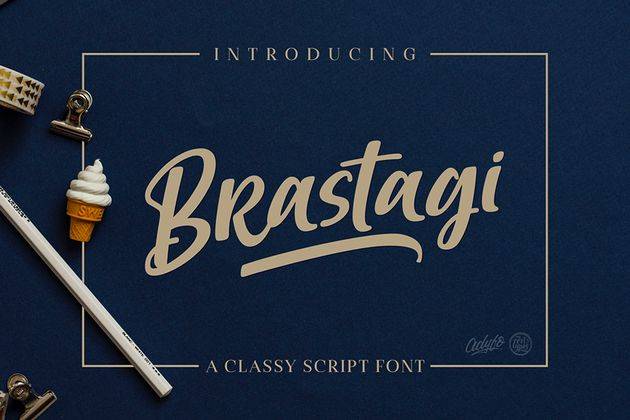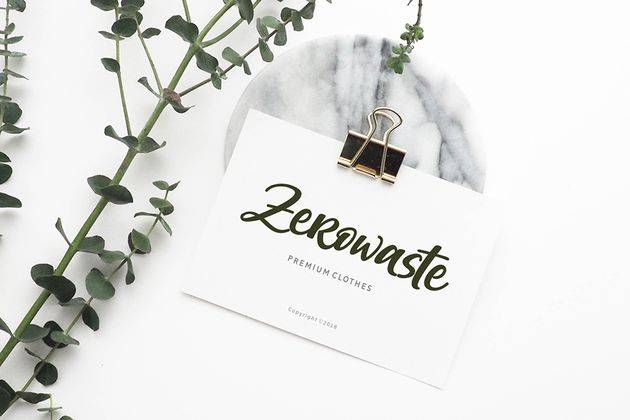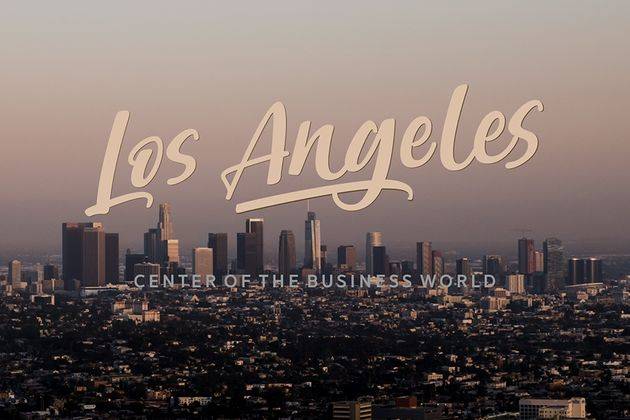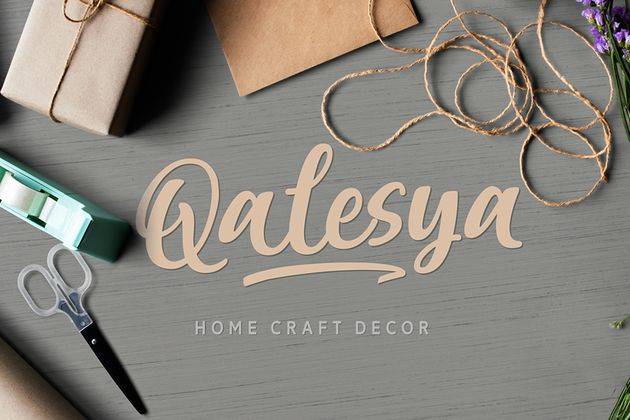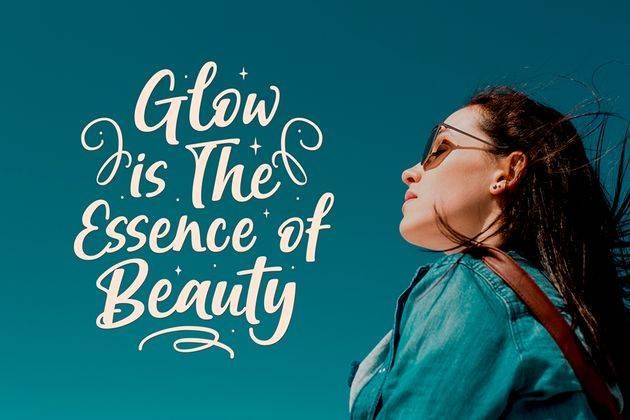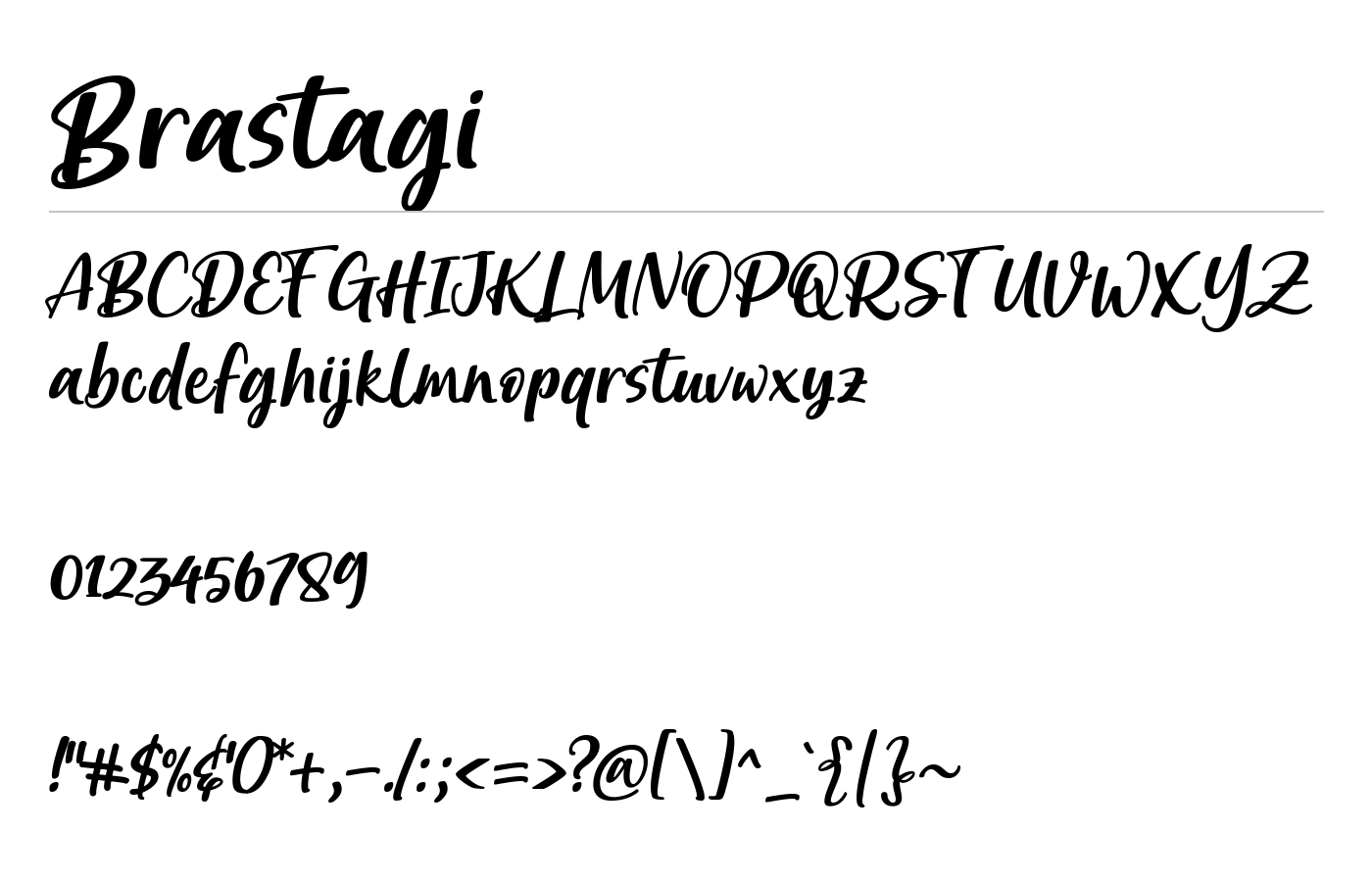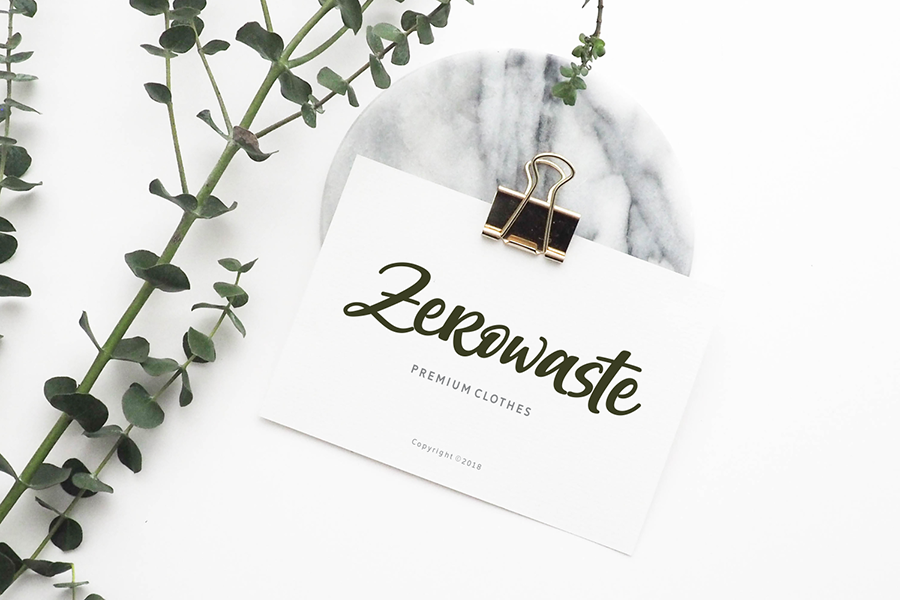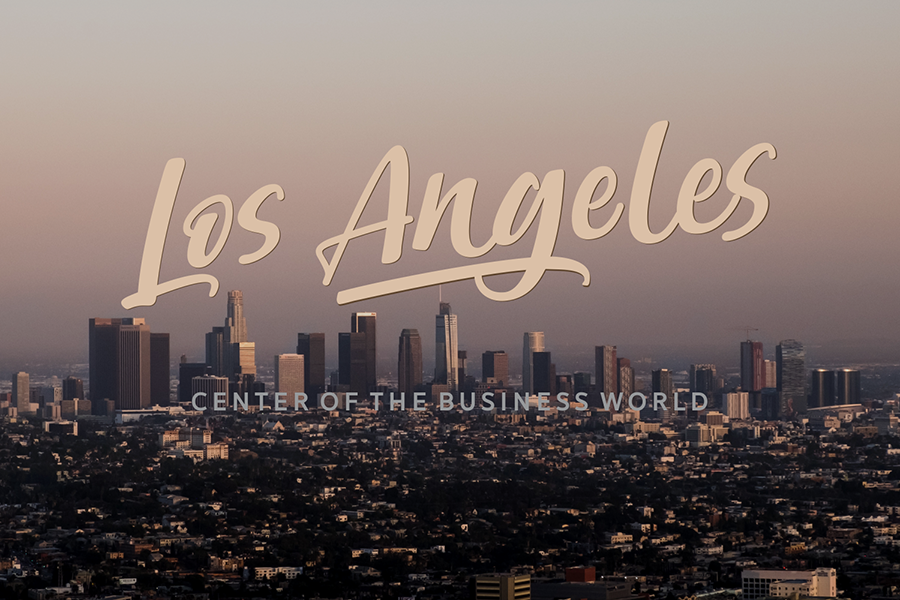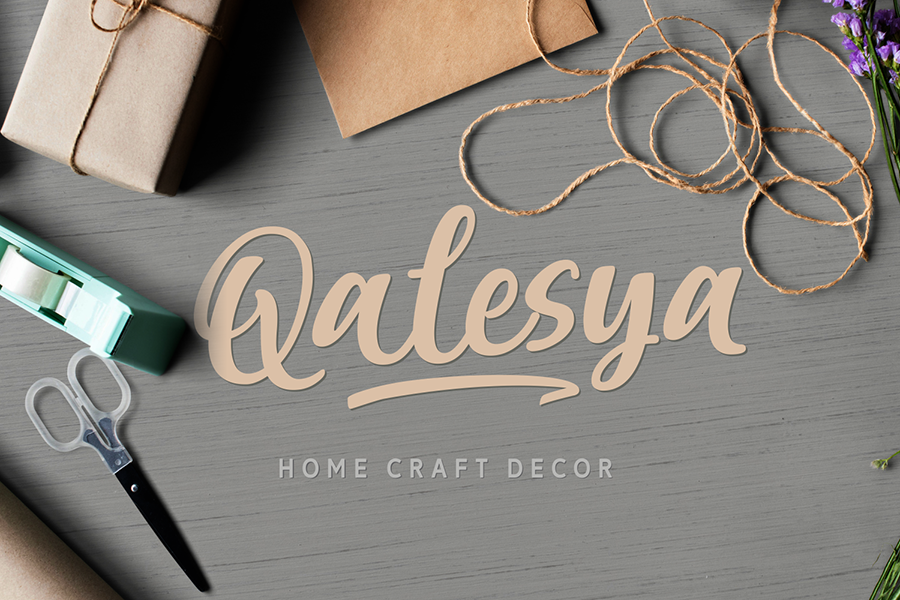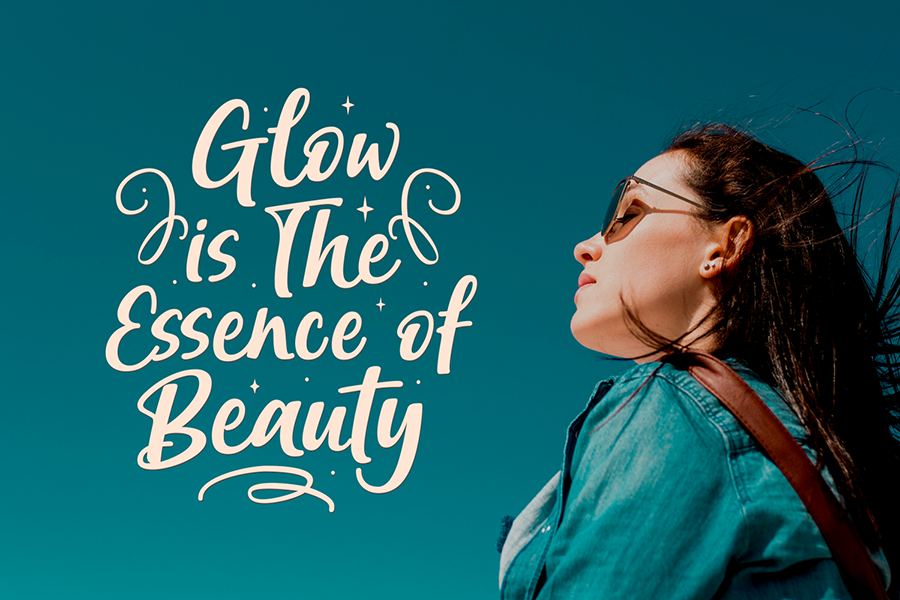
Brastagi Handlettering is a lively and informal script font with smooth, natural strokes that emulate authentic hand lettering. Its medium weight and slightly condensed width make it suitable for creating warm, approachable designs while maintaining legibility. Perfect for branding, invitations, and creative headlines, this font conveys a friendly and personal touch.
Brastagi Handlettering Font Demo
About Brastagi Handlettering Font Demo
| Font family | Brastagi Handlettering Font Demo |
| Designer | Adyfo; Situjuh Nazara |